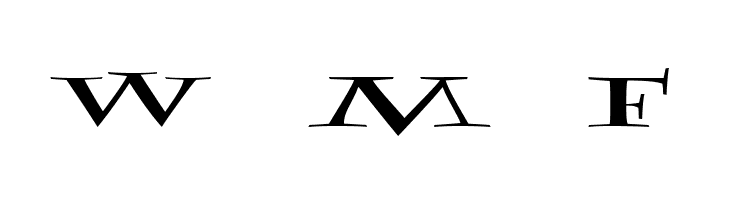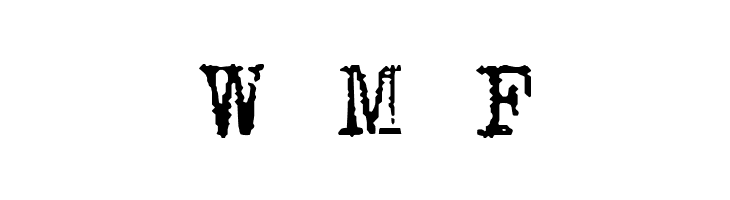
A monospaced italic font with a classic typewriter feel and modern appeal.
A monospaced font with a clean, structured design and medium contrast.
A bold, oblique monospaced font with a modern, dynamic style.
A monospaced slab serif font with a classic typewriter style.
A monospaced font with classic typewriter aesthetics and slight serifs.
A vintage typewriter-style font with a monospaced, slab serif design and a slightly distressed look.
A vintage serif font with a textured, handcrafted appearance.
A vintage, typewriter-inspired font with a textured, worn appearance.
A bold, textured serif font with a vintage yet modern appeal.
A charming script font with fluid, connected strokes and a handwritten style.
A bold, distressed typewriter-style font with a grunge, vintage aesthetic.
A distressed, grunge-style font with a typewriter-like appearance.
A geometric and artistic font with sharp, angular letterforms.
A distressed, vintage typewriter-style font with bold characters enclosed in squares.
A classic serif typeface with a clean, traditional design and typewriter-inspired aesthetics.
A vintage, typewriter-inspired font with a distressed, authentic feel.
A collection of ornate, decorative elements with intricate swirls and flourishes.
A distressed, bold typewriter-style font with a vintage, grunge aesthetic.
A bold, distressed typewriter-style font with a vintage, handcrafted look.
A playful, decorative font with characters encased in ring-like designs, reminiscent of vintage typewriter keys.
A vintage typewriter-style monospaced font with consistent stroke width and prominent serifs.
A bold, geometric display typeface with a modern and edgy style.
A rugged, monospaced typeface with a vintage typewriter aesthetic.
A bold, distressed font with a vintage, typewriter-like appearance.